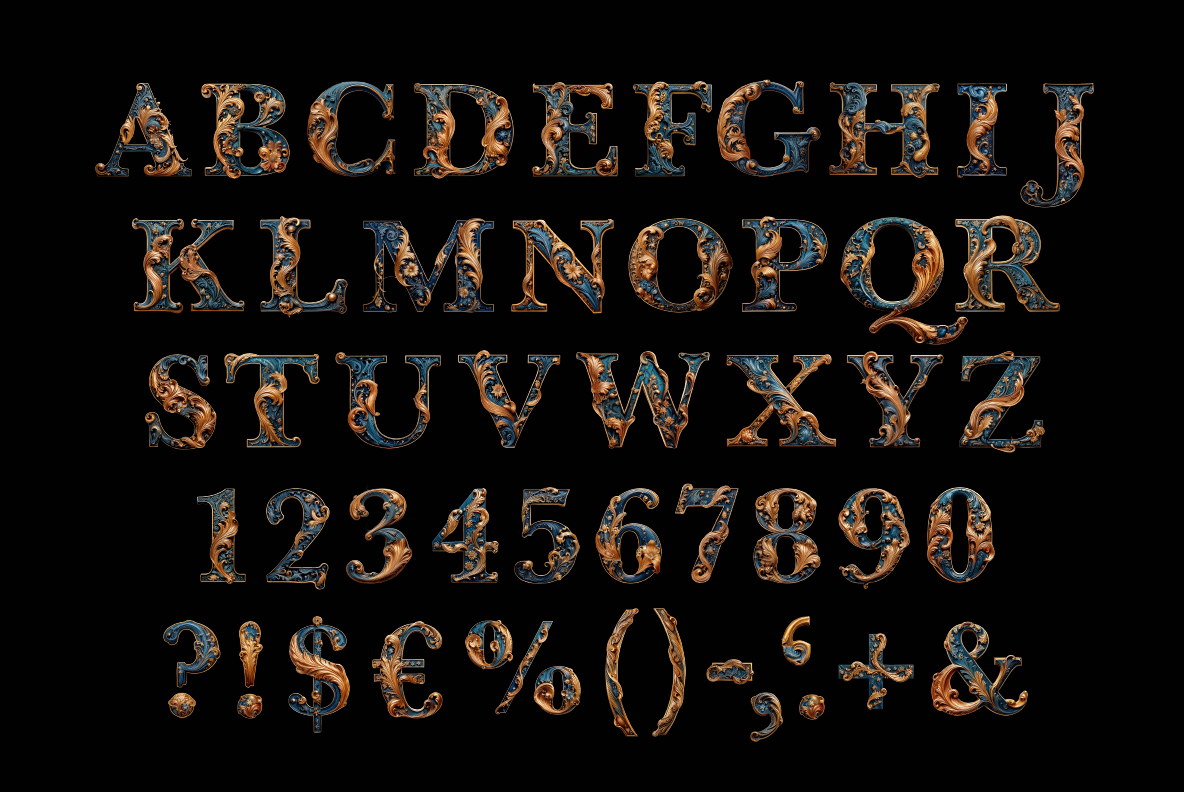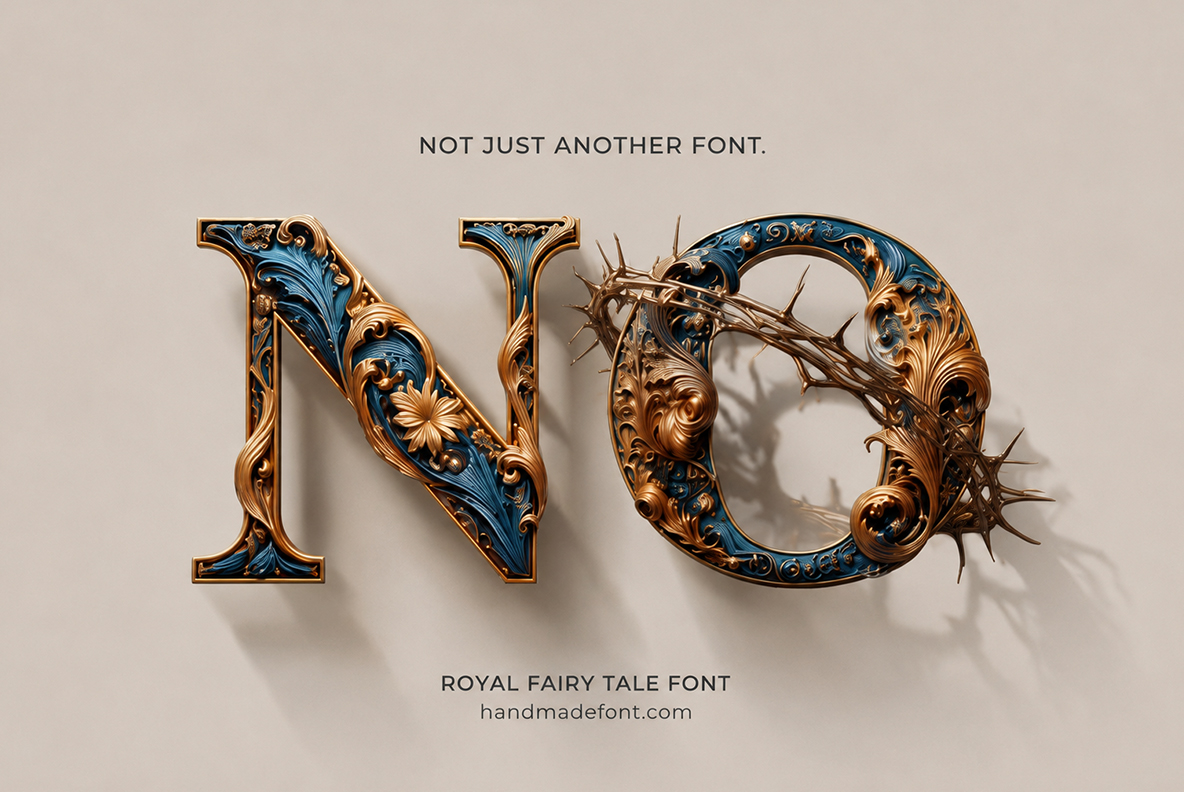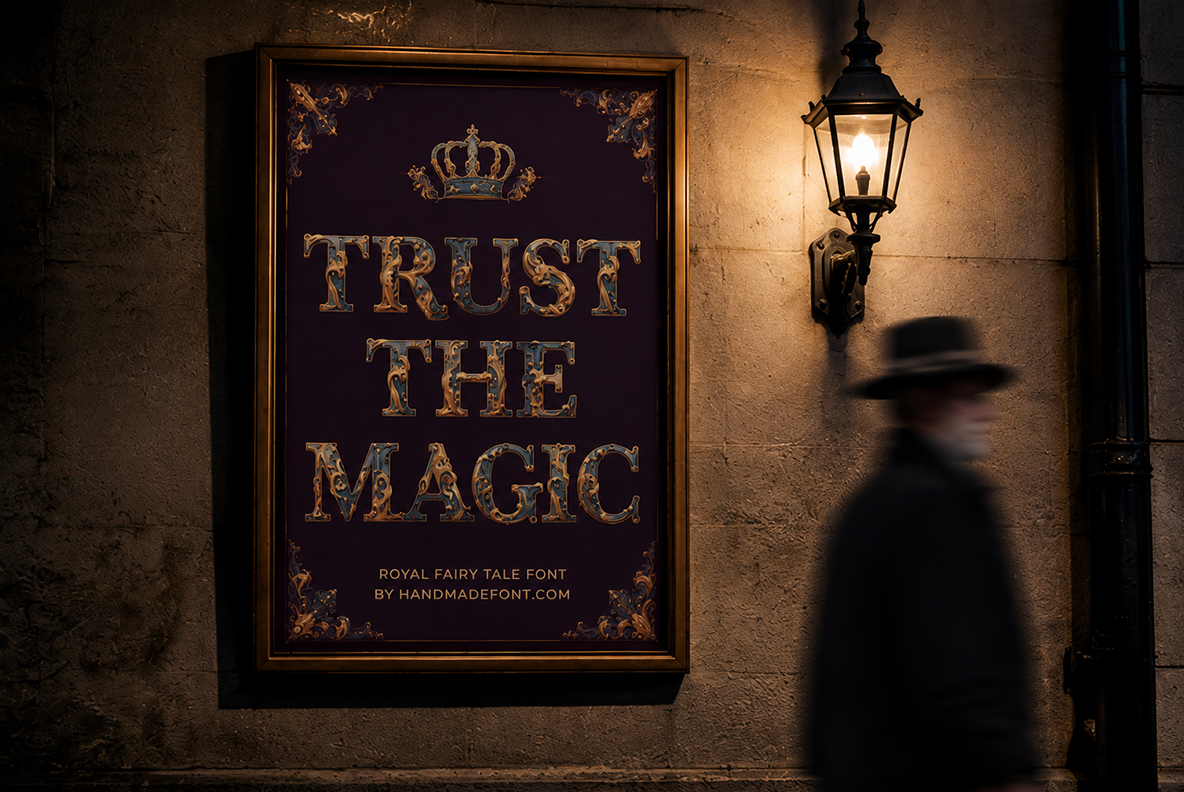
Step into a magical realm with the Royal Fairy Tale Font. This breathtaking OTF typeface instantly brings elegance and vintage charm to any project. Perfect for book covers, invitations, and posters, the package sensibly includes high-resolution PNG letters on a transparent background. Give your designs the majestic, show-stopping touch they genuinely deserve with this beautifully crafted, undeniably majestic typography.
Step Into a Magical Realm with the Royal Fairy Tale Font
Once upon a time, designers struggled with boring typography. Their creative projects lacked that essential magical spark. Enter the Royal Fairy Tale Font! This isn’t just another standard typeface. Actually, it acts as a glittering crown for your headlines. You can design an elegant invitation for a royal ball. Alternatively, craft an epic fantasy book cover. Ultimately, this magical font rescues your artwork from mediocrity. It shines brighter than a dragon’s gold hoard. Furthermore, using this typeface is incredibly easy. Integrating it takes less effort than a true love’s kiss.
Honestly, you might start speaking in Old English. Staring at these majestic letters has a funny effect. Meanwhile, your target audience will be utterly captivated. They will love the sheer elegance and intricate details. Therefore, settling for plain text is simply unacceptable. Now, you can sprinkle digital fairy dust over your canvas. Truly, this font shifts vintage design aesthetics entirely. Moreover, it ensures your work stands out completely. Everyone will admire your brilliant creative choices. Basically, your designs will look fit for a king.